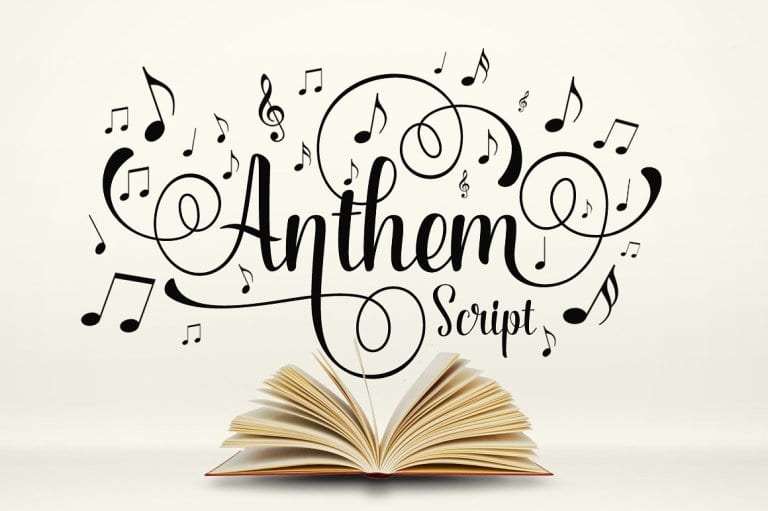
Anthem Script is a typeface that experiences adopting two building models: the typographic (with repetition of shapes) and the script (with the freedom of writing). The models are presented in a subtle, unobtrusive way and mainly without conflicts. The essence of each personality is present, coexisting harmoniously and enjoying the same stylistic space.